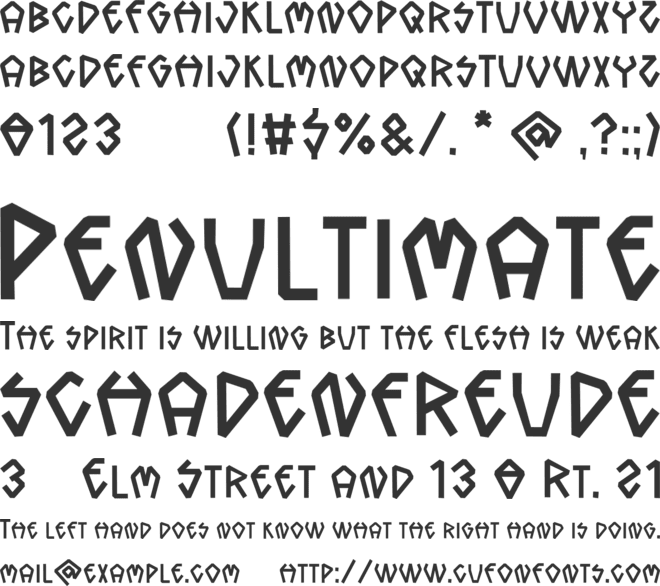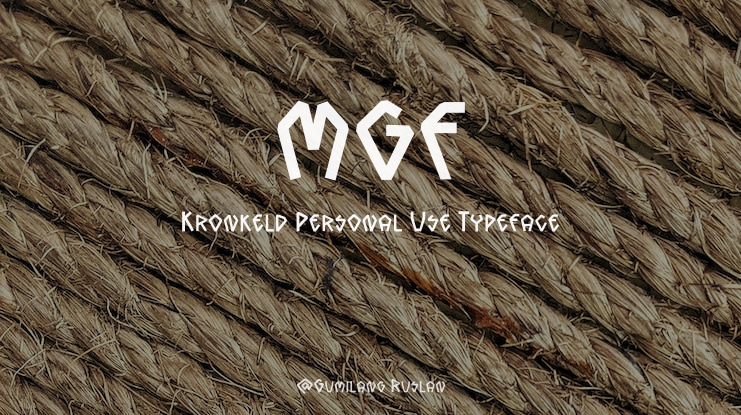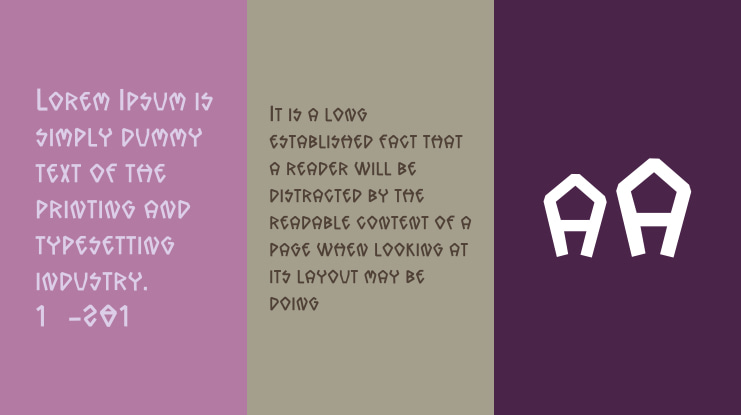
MGF Kronkeld Personal Use Font
Gumilang Ruslan
KRONKELD is a rune-inspired display font that merges ancient Nordic mysticism with futuristic geometric design. Its angular shapes and cryptic feel make it a perfect choice for gaming, fantasy, posters, apparel, logos, and cinematic branding. Both mysterious and modern, KRONKELD gives your projects a bold, unforgettable identity.